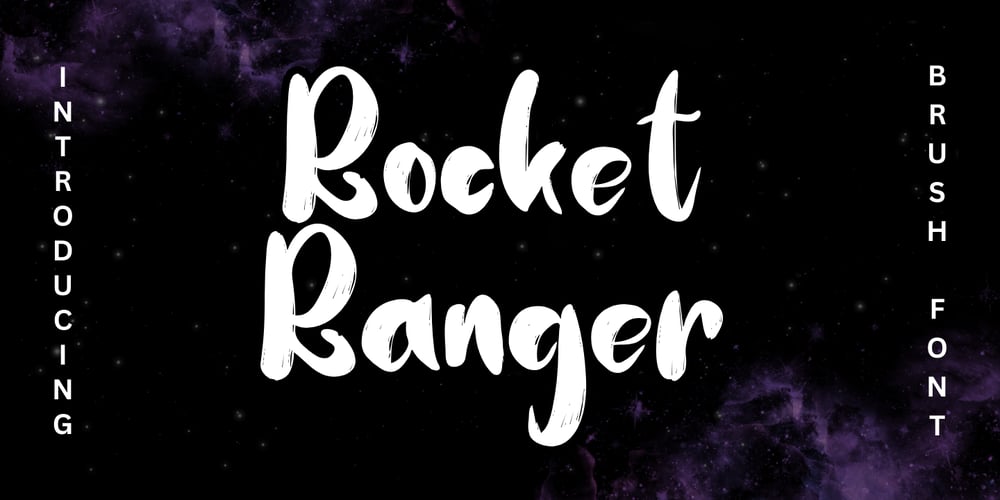
Rocket Ranger Font Family was designed by Stephanus Prabowo and published by Andrey Font Design. Rocket Ranger contains 2 styles and family package options. Rocket Ranger is a bold and strong brush display font. Natural and elegant, this font can be used on a wide variety of designs such as headlines, titles, headings, logos, branding, posters, invitations, books, and any other creative projects.